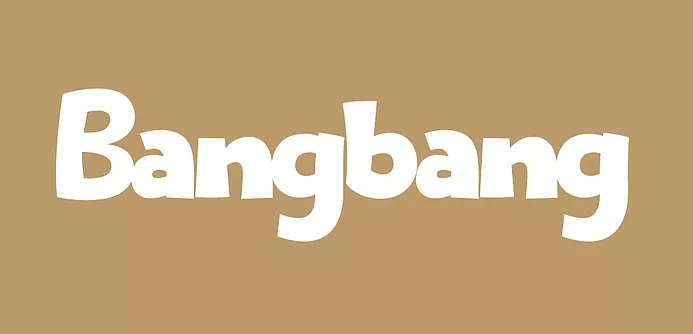
Bangbang Font
Bangbang Font is perfect for comic book titles, action movie posters, gaming logos, explosive advertising campaigns, superhero merchandise, comic strip lettering, action figure packaging, video game interfaces, dynamic web banners, and high-energy promotional materials.
What makes Bangbang Font so exciting is its incredible explosive energy that captures the thrilling intensity of comic book action sequences and superhero adventures. This dynamic typeface delivers powerful visual impact through letterforms that seem to burst with kinetic energy and dramatic flair. The font's bold design elements perfectly embody the spirit of action-packed entertainment and comic book culture, making it an essential choice for projects that need to communicate excitement, power, and heroic determination.
Bangbang Font comes in multiple font families including Regular, Bold, Extra Bold, Outline, Shadow, Condensed, Extended, and Impact variations. Each family member maintains the core action-packed characteristics while offering different energy levels and stylistic approaches to suit various dynamic design requirements.
The energetic design elements in Bangbang Font make it particularly effective for entertainment industry applications where capturing audience excitement is crucial. Its commanding presence works exceptionally well in large display formats where the explosive letterforms can create the full dramatic effect that action-oriented audiences expect.
Creative professionals in entertainment and gaming industries recognize how Bangbang Font transforms ordinary promotional text into thrilling calls-to-action that capture the essence of comic book heroism. The typeface's powerful character set includes special action symbols and dynamic elements that enhance the overall superhero atmosphere of any project.
For design professionals working in comics, gaming, and action entertainment, Bangbang Font serves as the ultimate weapon for creating memorable brand experiences that deliver the explosive excitement and heroic energy that audiences crave in their favorite action-packed entertainment.